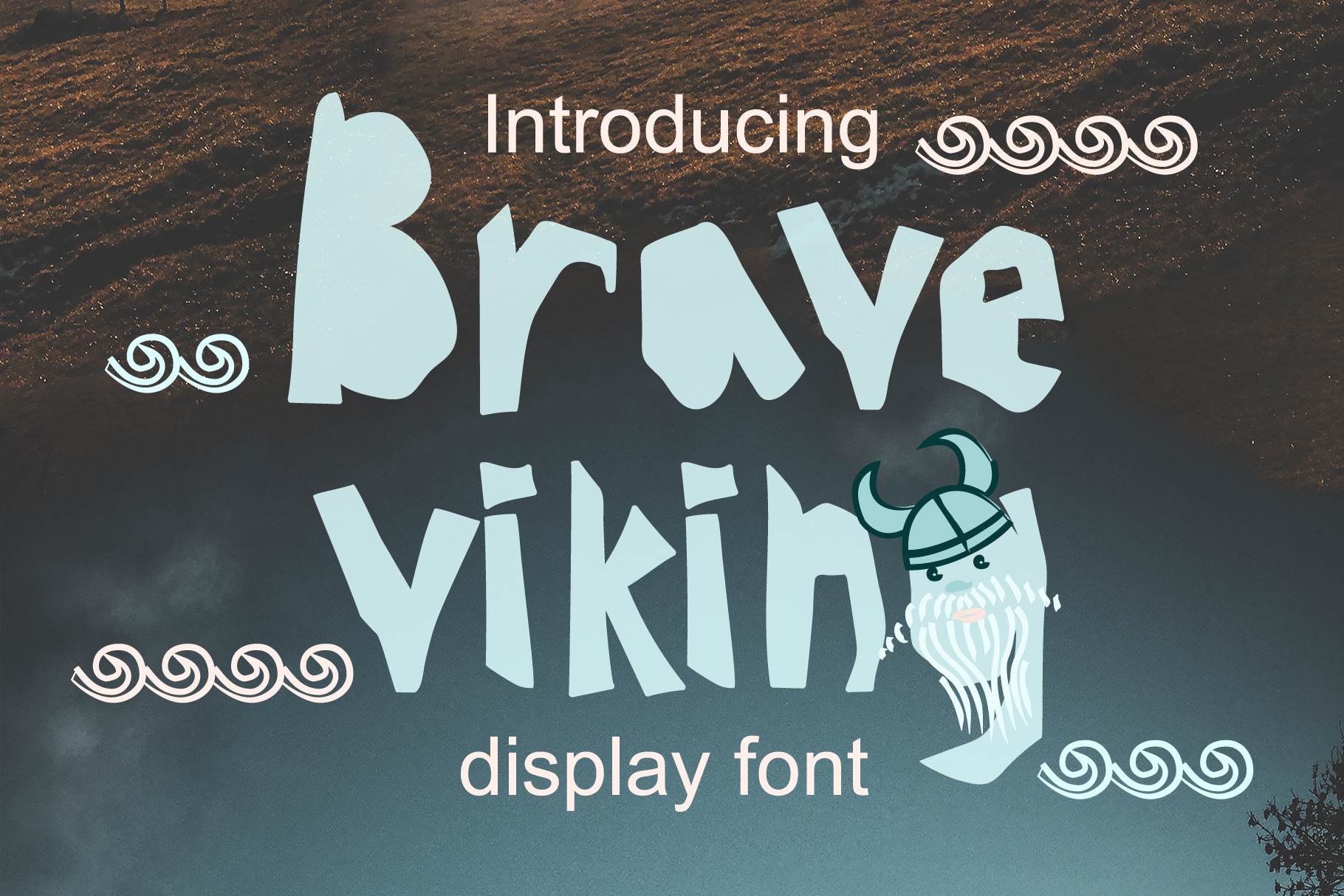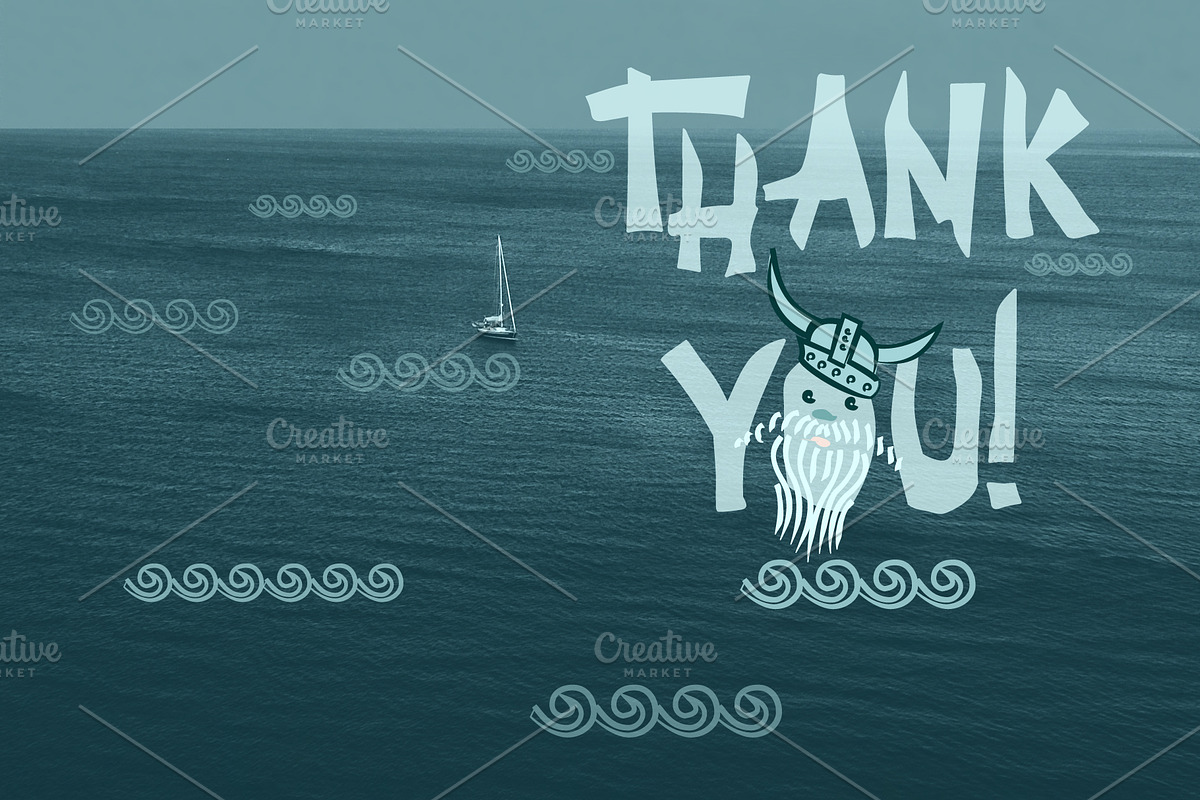
BRAVE-VIKING OTF font
Modern display grotesque sans-serif font. You can use this font for design logos, quotes prints on t-shirts, modern typography posters, children posters and lovely cards and… other. OpenType Font was designed with Fontself Maker in Illustrator CC. Contains CAPITALS & STRINGS letters, NUMERALS & DIGITS, PUNCTUATION, MULTILINGUAL, STANDART AND DISCRETIONARY LIGATURES.